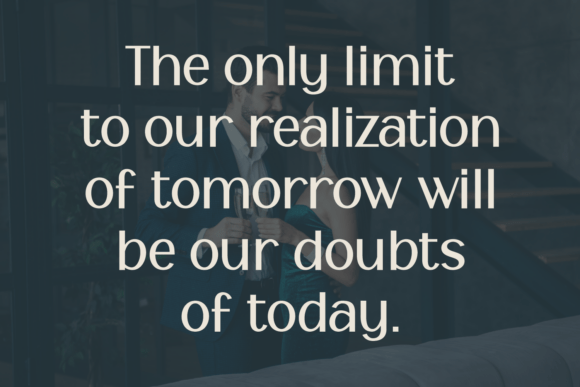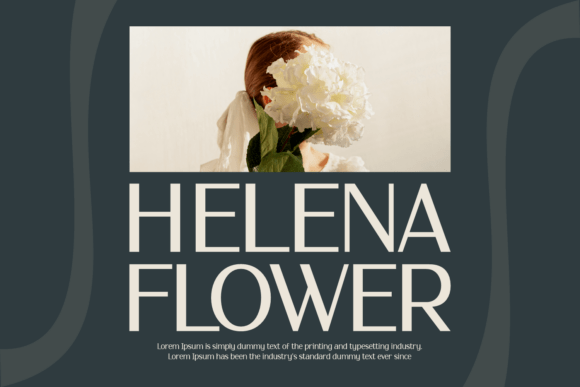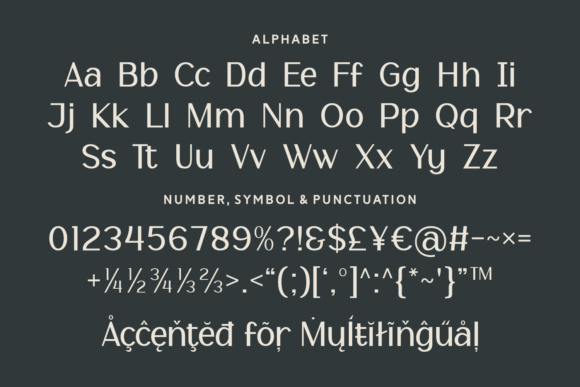
Introduction to Missable Font
Missable is a stunning, sophisticated modern sans-serif font that effortlessly blends classic elegance with a distinct contemporary minimalist aesthetic.
This refined typeface features medium contrast strokes and perfectly balanced, subtly flared serifs that provide structure and grace, creating a sense of understated luxury The generous x-height and slightly compressed letter width make it highly fashionable and perfect for editorial content that requires a clean, confident, and timeless appeal .
Key Features of Missable Font
Why Choose Missable Font?